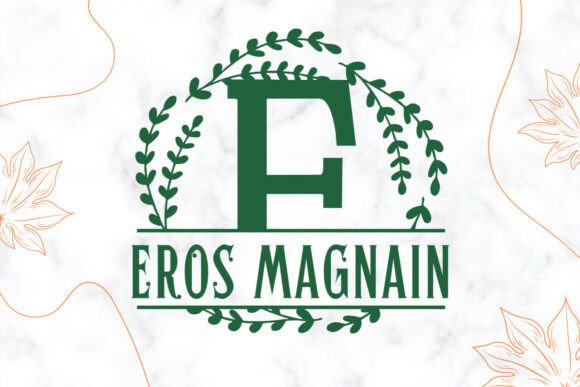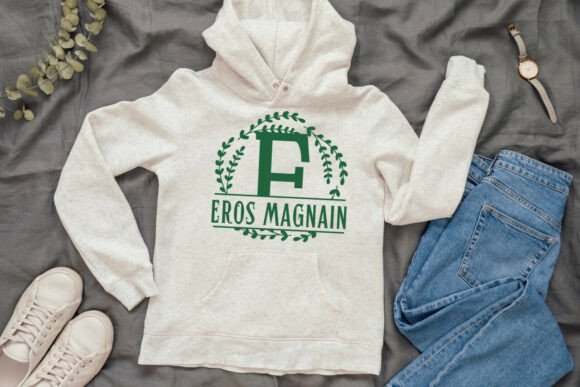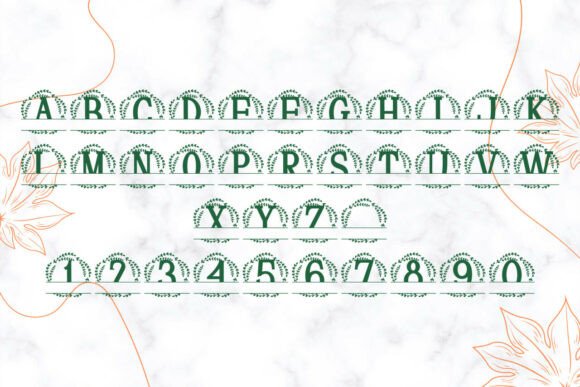
Introduction to Majestelle Split Monogram Font
Majestelle Split Monogram Font turns initials into custom nameplates in seconds.
The letterforms feel elegant and clear The center split leaves space for names, dates, or short words.